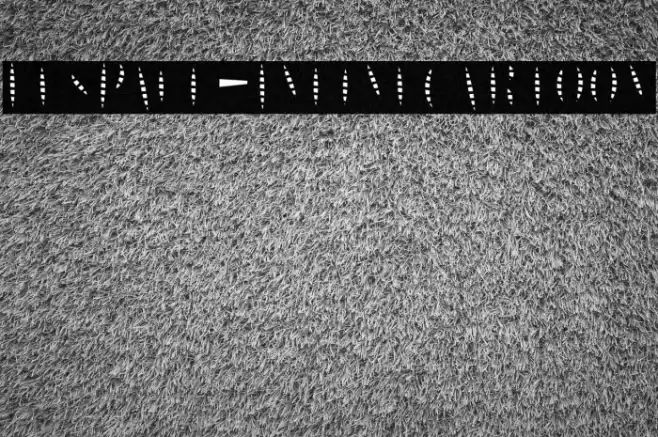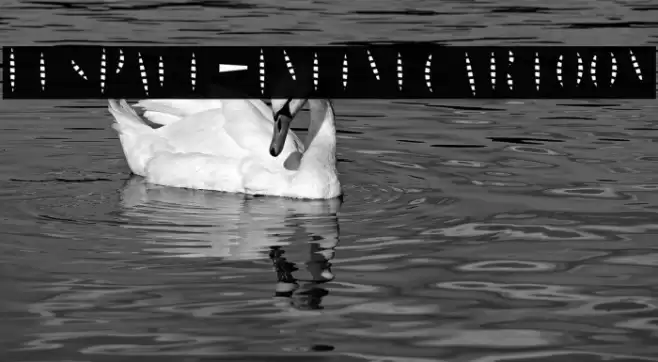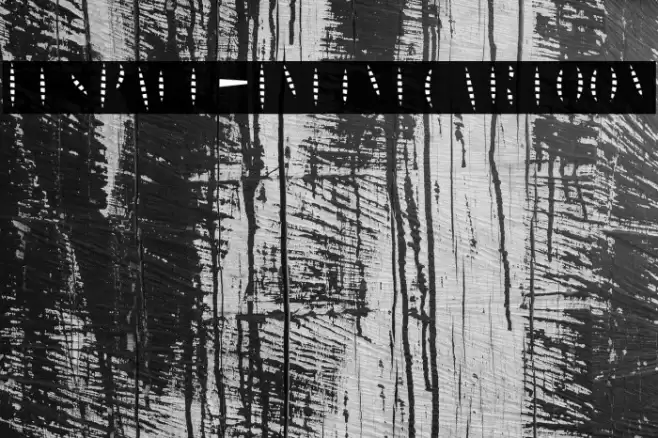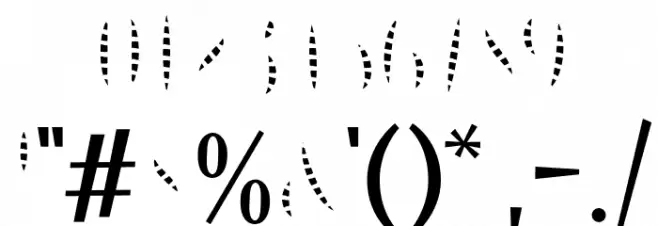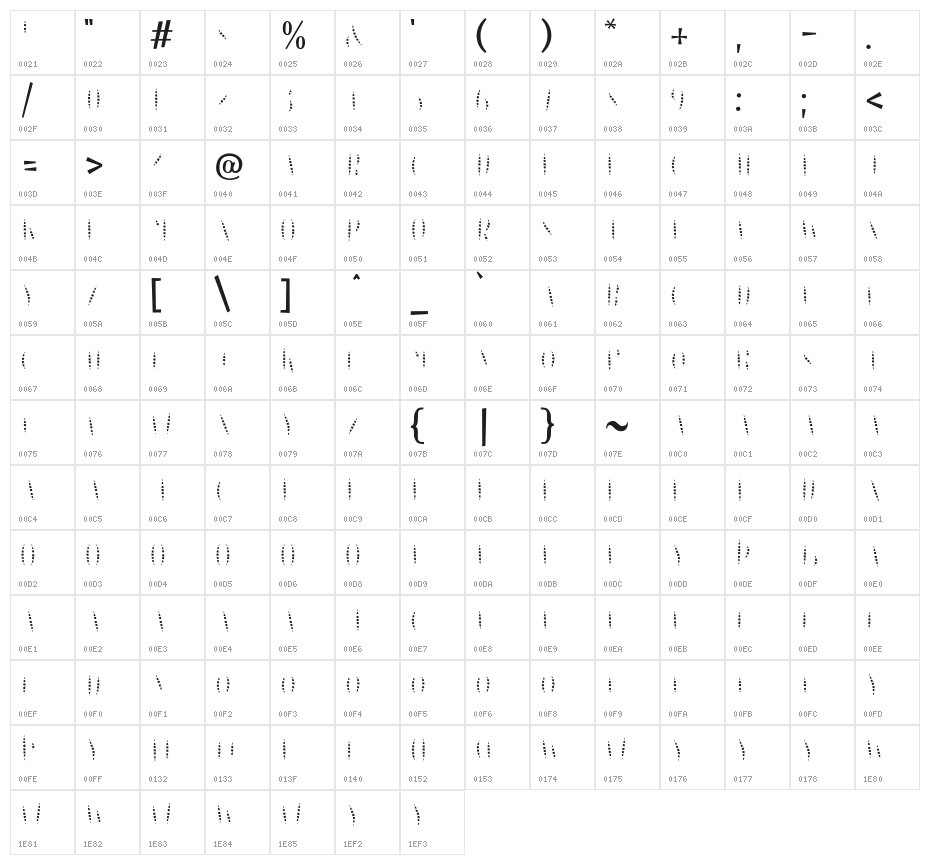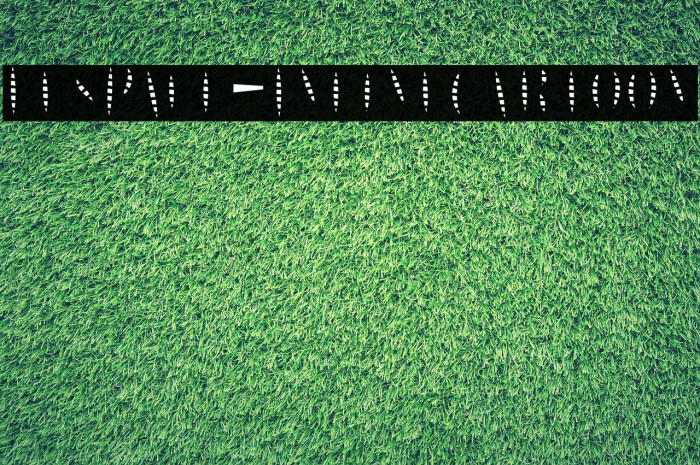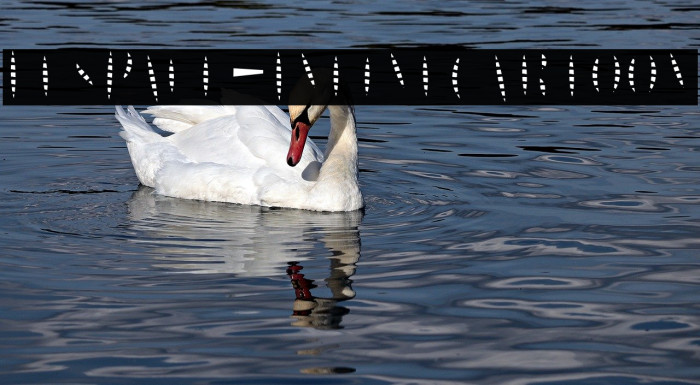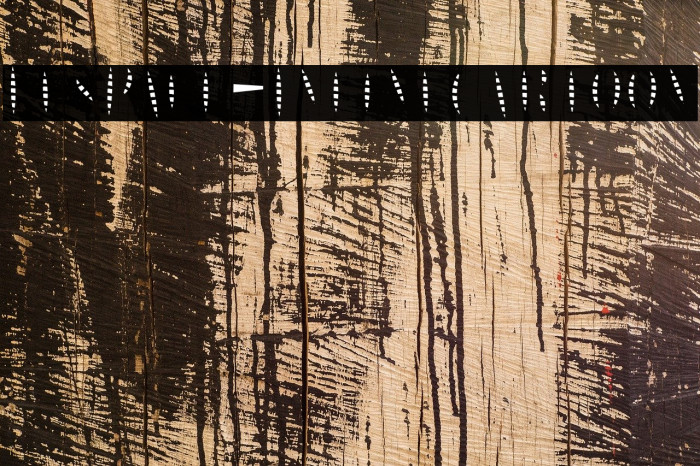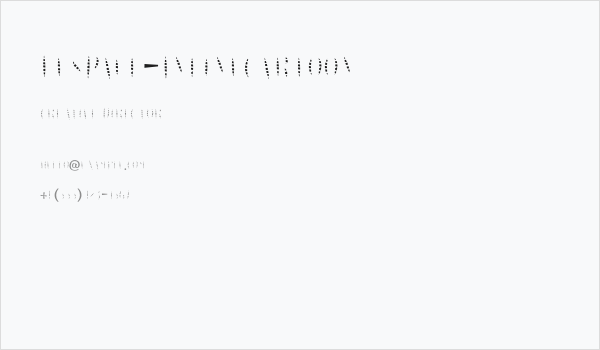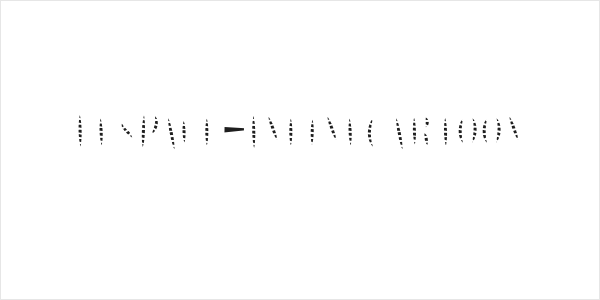
LesPaul-InlineCartoon Font
LesPaul-InlineCartoon Description
This font features a unique, playful design characterized by its dotted, inline pattern. Each character is composed of a series of evenly spaced dots that form the shape of the letters and numbers, giving it a whimsical and cartoonish appearance. The font maintains a consistent weight throughout, with medium contrast between the dots and the background. Its distinctive style makes it stand out, ideal for projects that require a fun and engaging visual element. The spacing between characters is normal, ensuring readability while maintaining its decorative appeal.
A playful, dotted inline font with a whimsical cartoonish style from Cartoon fonts.
- Proposed Projects: Ideal for children's books, comic strips, playful branding, and creative posters.